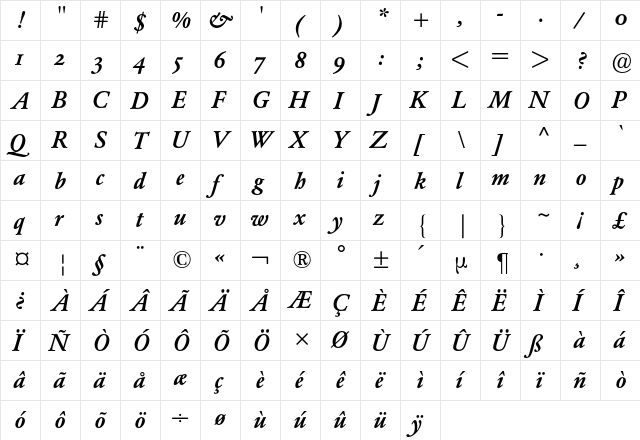
Garamond Expert BQ Regular Font Preview
Garamond Expert BQ Regular
Garamond Expert BQ Regular Font Details
Design Context for Garamond Expert BQ Typeface
Garamond Expert BQ offers clean, dependable letterforms without strong stylistic allegiance, making it a practical choice for designers who need flexibility.
Pro Tip: Use Garamond Expert BQ in both headline and body roles to test its range before committing to a single application.